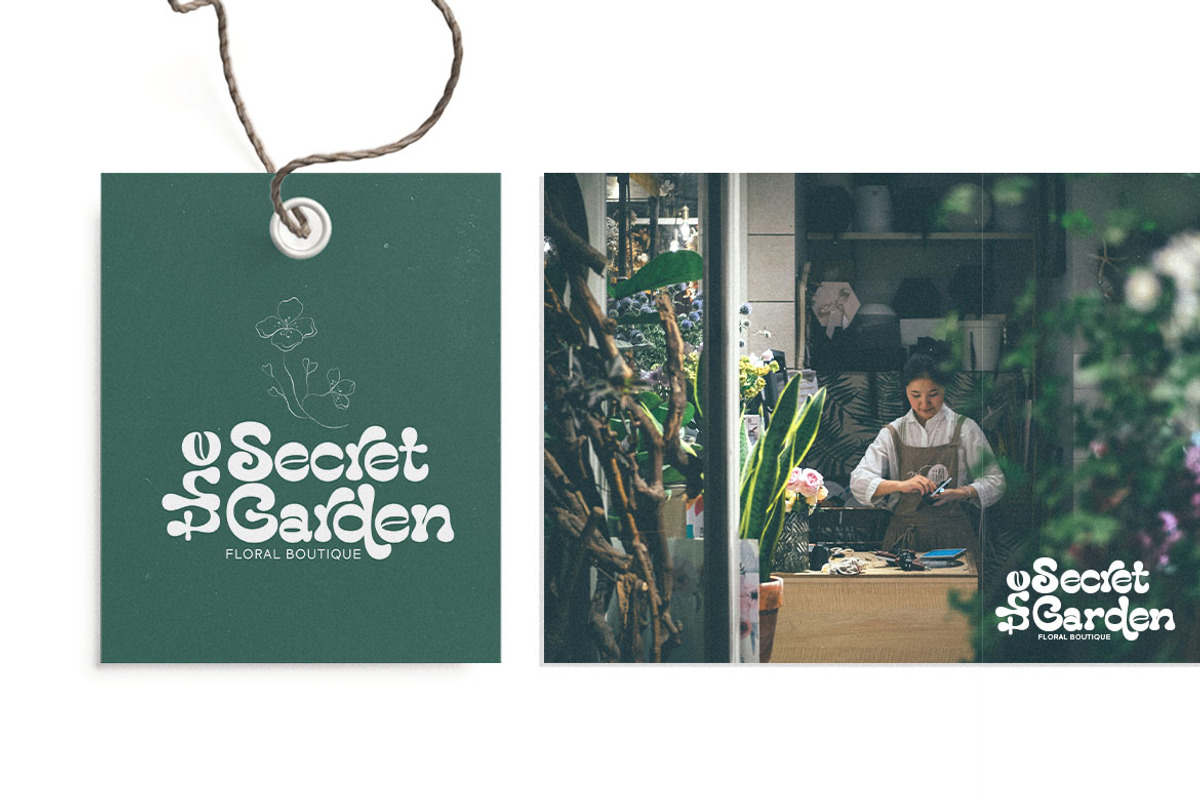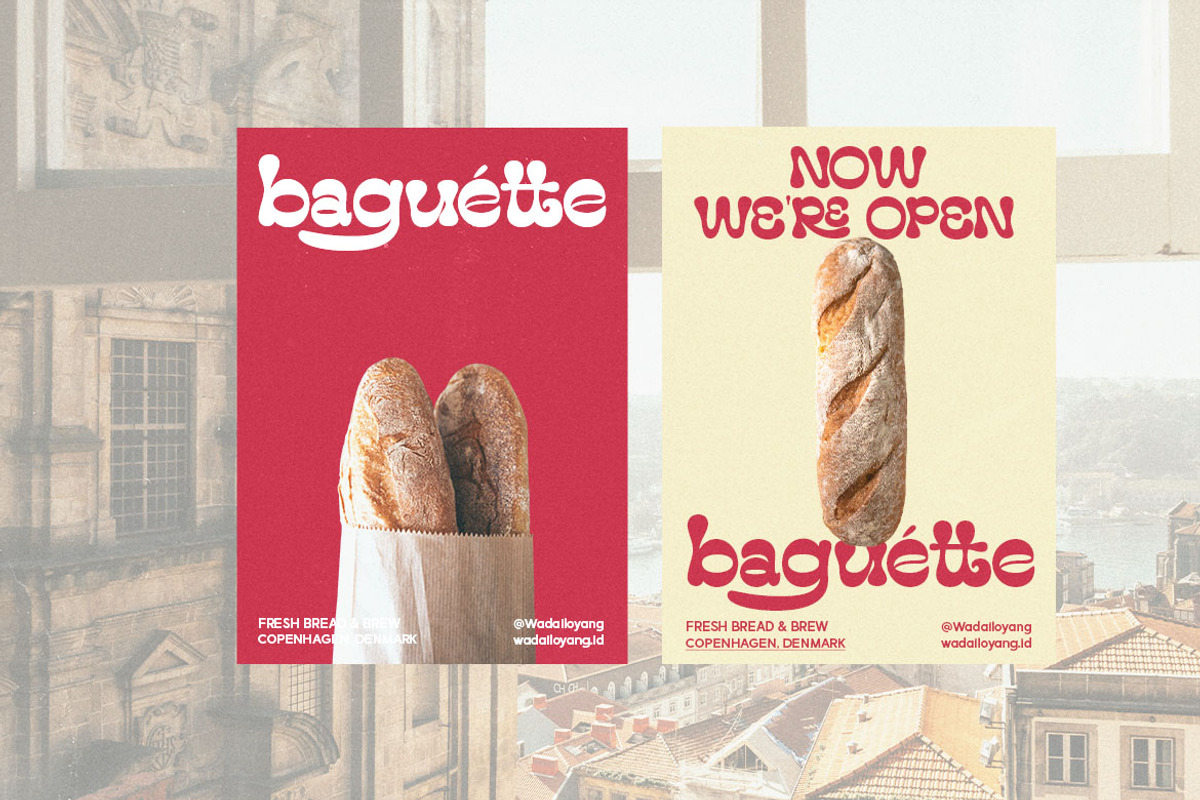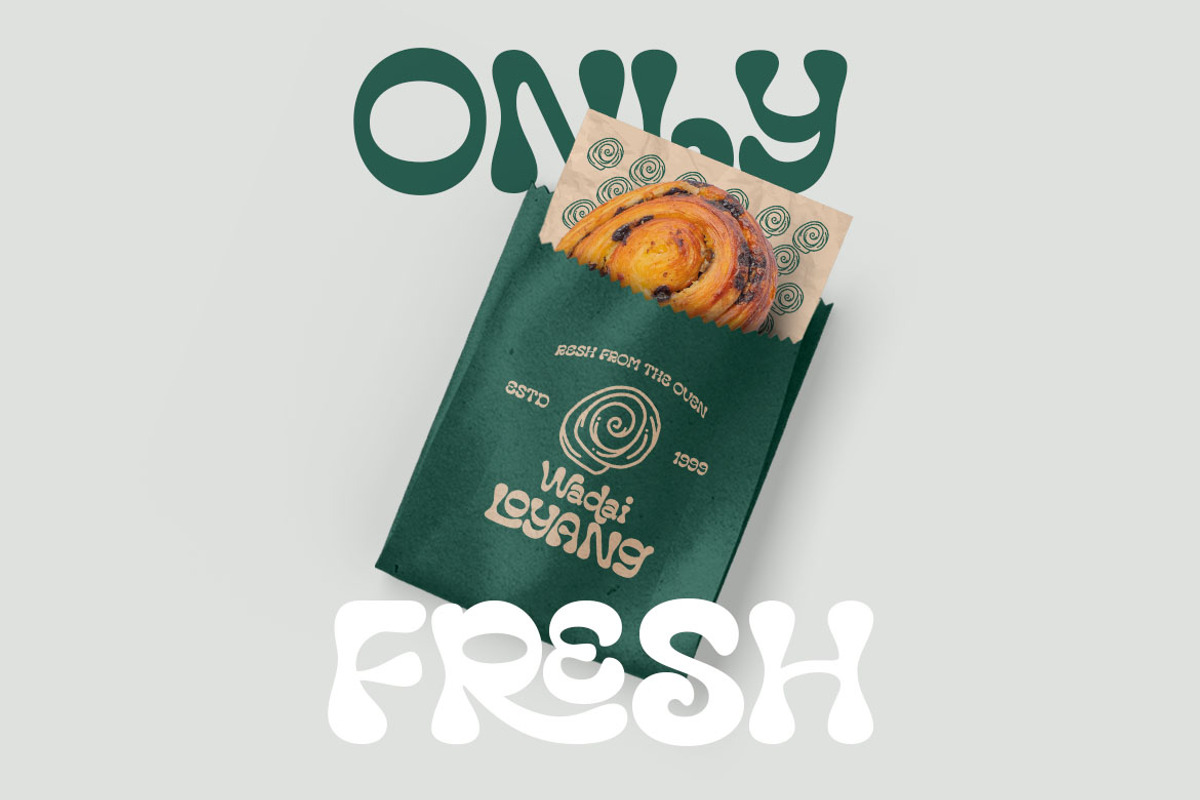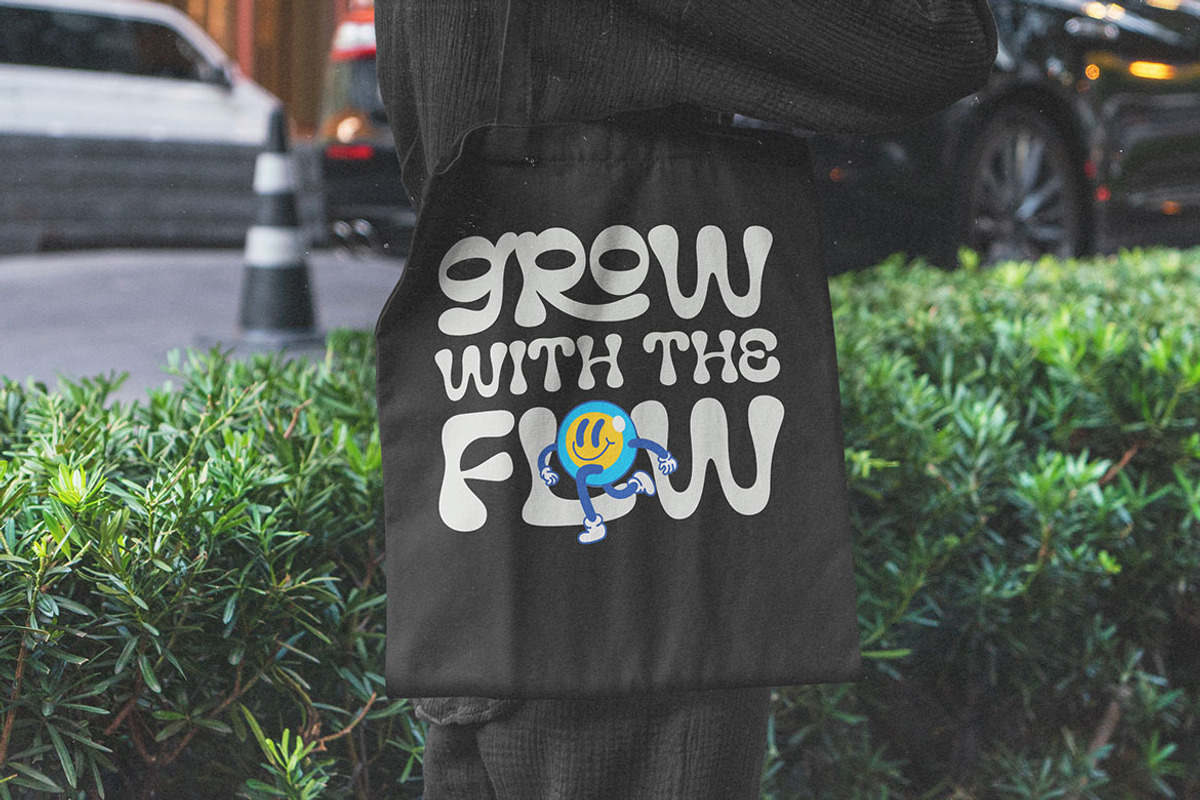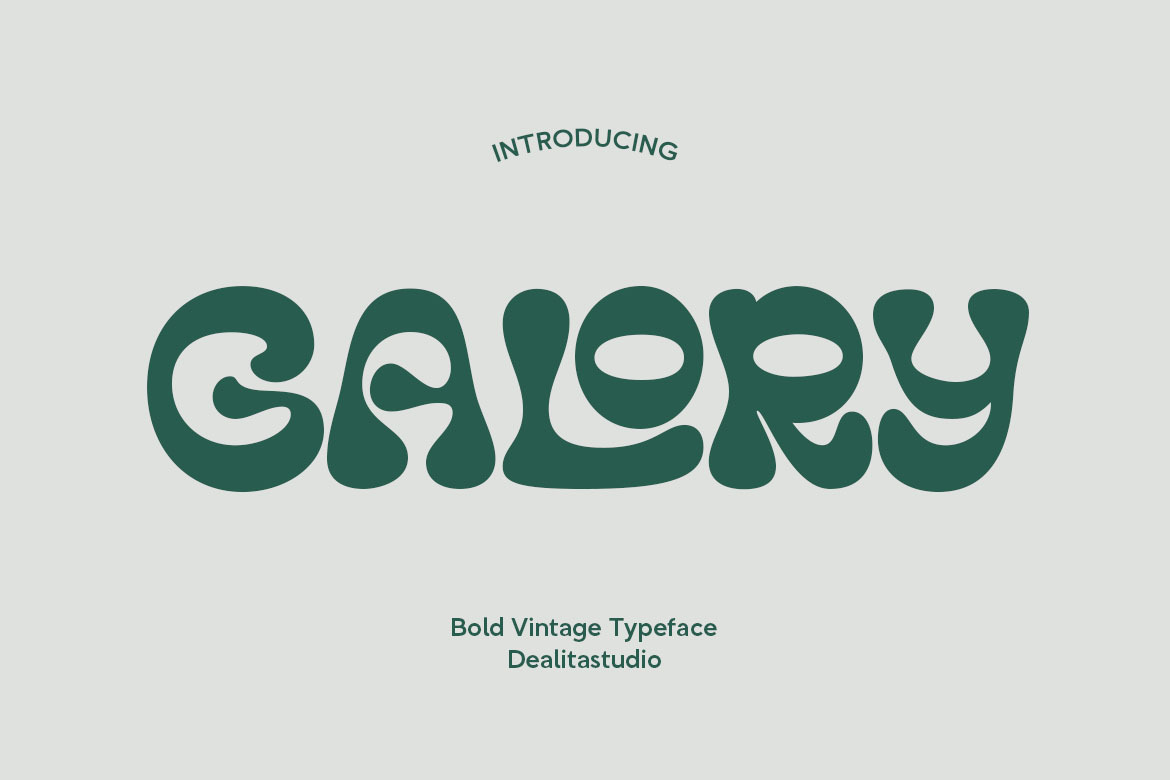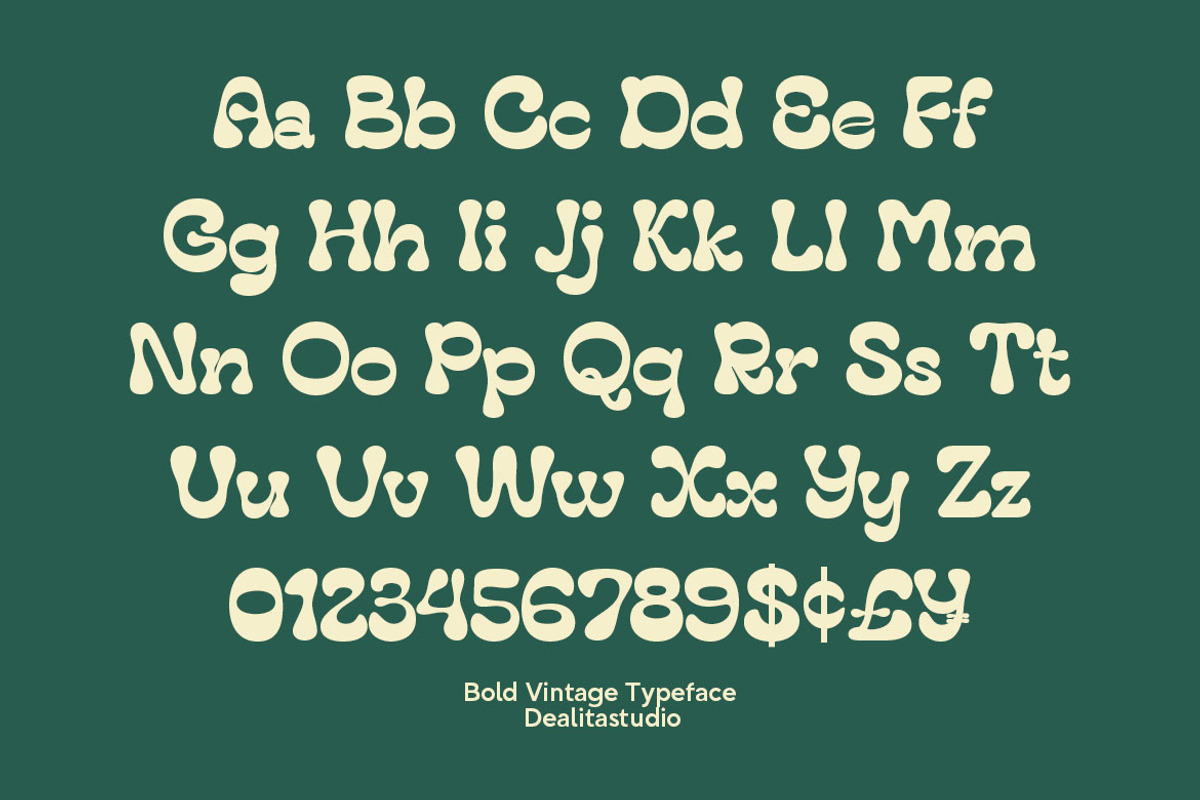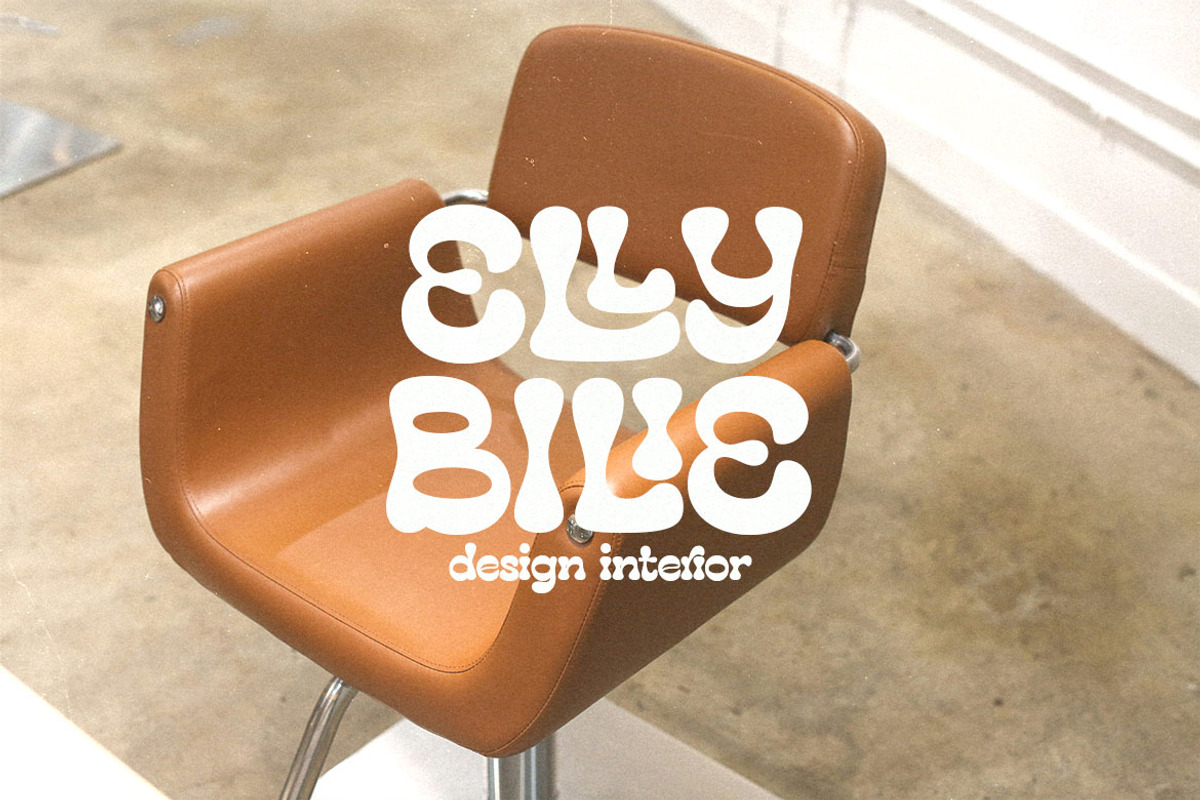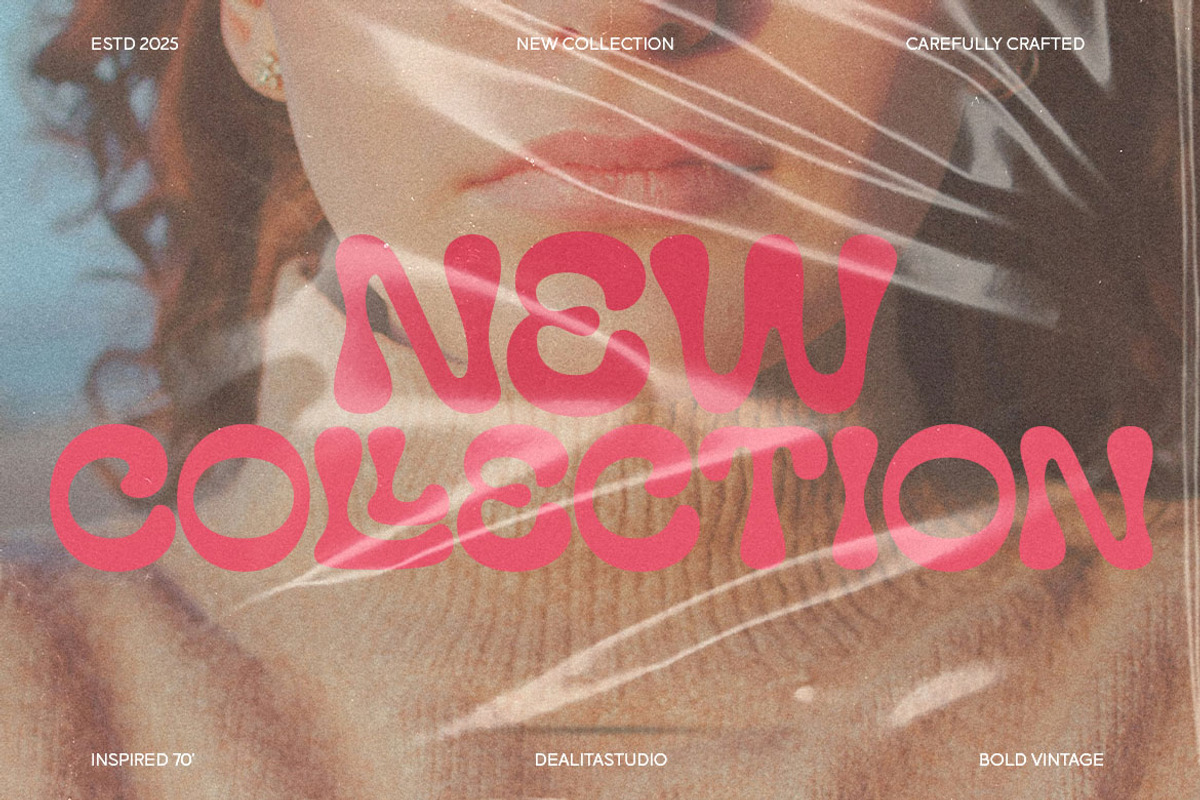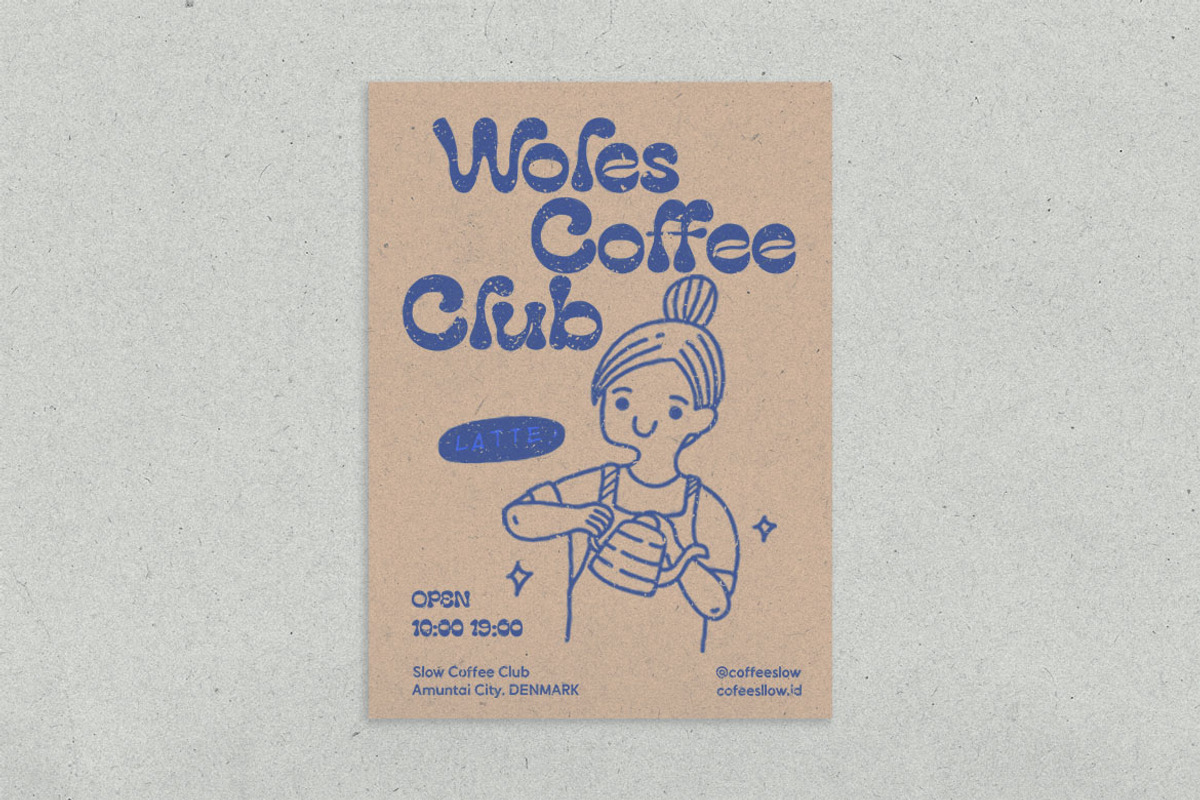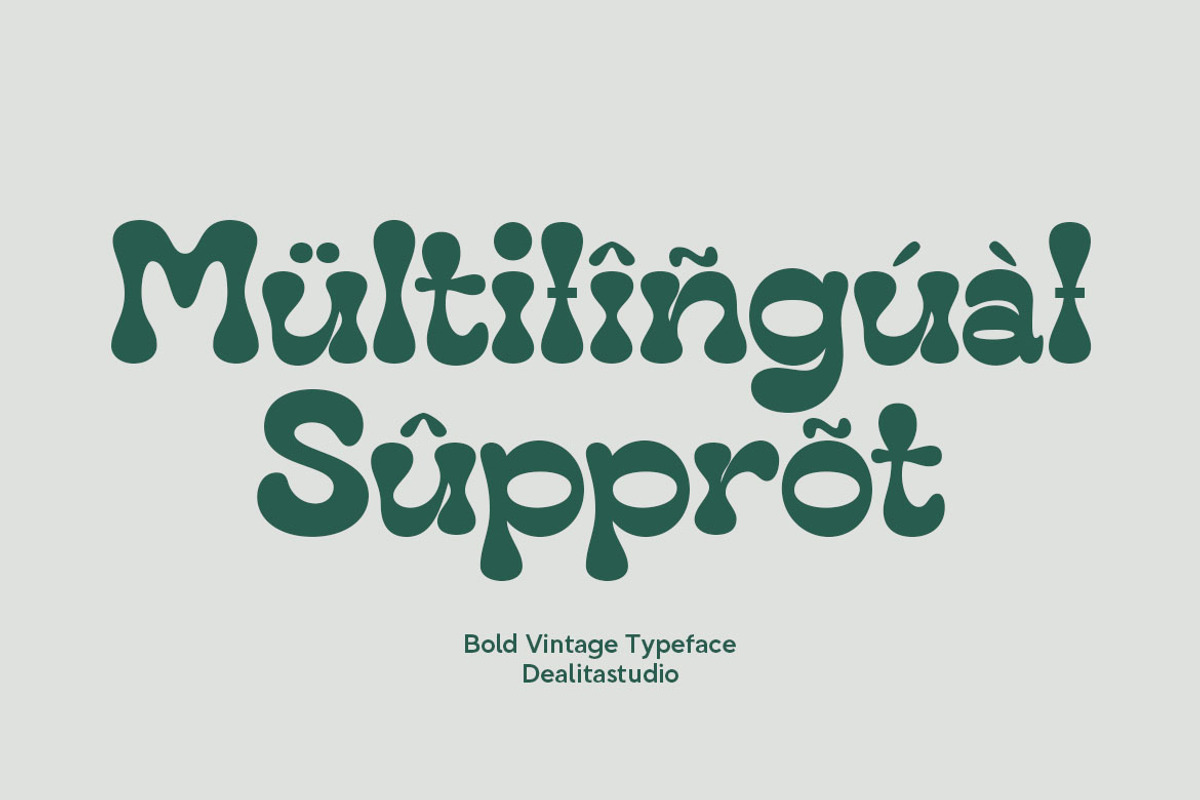
Galory – Retro Bold Display Font
Galory — Reverse Contrast Retro Display
Galory is a bold, high-impact display font engineered with a striking reverse contrast structure. Capturing the vibrant 70s funky energy with a modern edge, its thick terminals and tapered flowing curves are designed for fearless branding, psychedelic posters, and vintage-inspired packaging.
Best For:
- Craft Beverage Labels (Beer, Gin, Coffee)
- Psychedelic Music Posters & Festival Art
- Retro Fashion & Lifestyle Branding
- Statement Logos & Urban Murals
Technical Specs:
- Unique Reverse Contrast Design
- Bold & Funky Flowing Curves